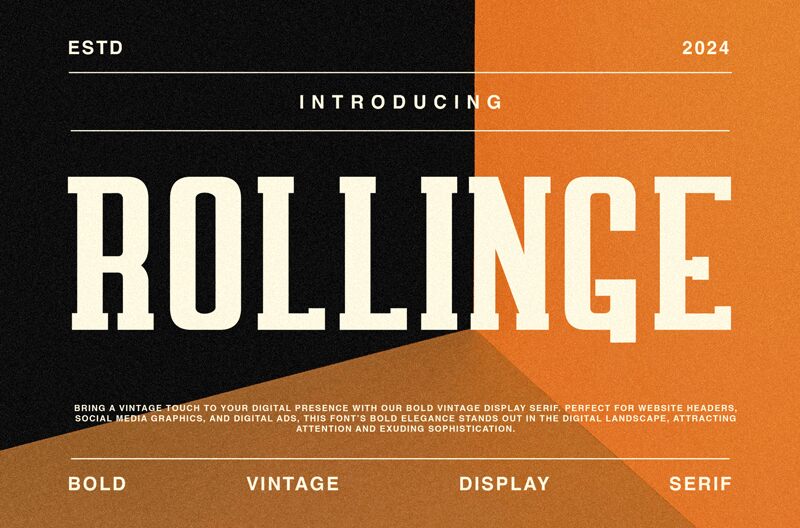
Rollinge Bold font, part of the Rollinge family designed by ToniStudio, captivates with its old-school charm and distinctive display style. This condensed font offers a bold presence, ideal for making statements in both digital and print media. Its retro flair adds a nostalgic touch that can elevate any design project, from vintage-themed posters to eye-catching branding.
Perfect for creating dynamic headlines or captivating social media graphics, the Rollinge Bold font is versatile yet striking. Designers looking for a free font download will find this typeface enhances creativity without compromising on professional appeal. Embrace the unique character of Rollinge Bold to infuse your next project with personality and style.